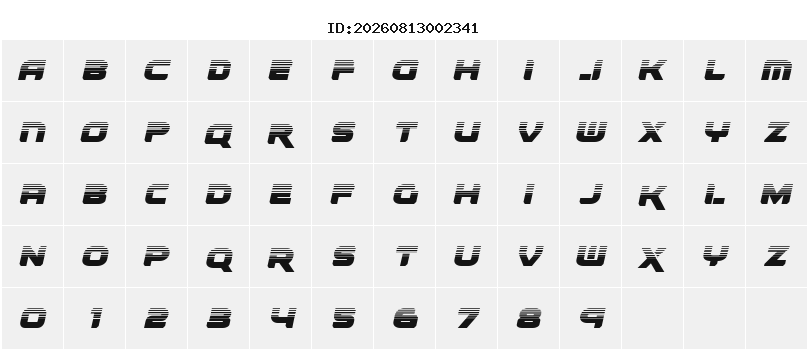
Renegado Halftone Italic Preview
• Font Name: Renegado Halftone Italic
• Full Font Name: Renegado Halftone Italic
About Renegado Halftone Italic.ttf
Renegado Halftone Italic.ttf is a modern, elegant sans-serif font designed for ultimate readability and visual harmony. Perfect for branding, headlines, web design, and print materials.